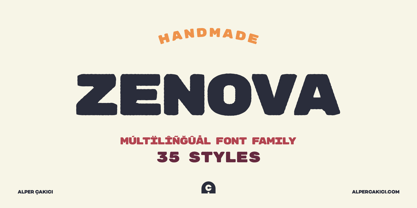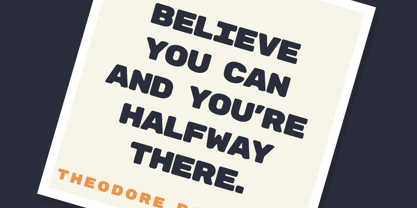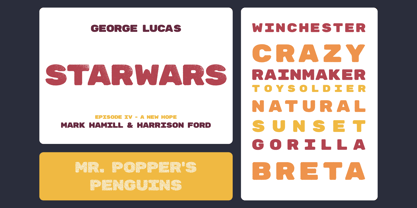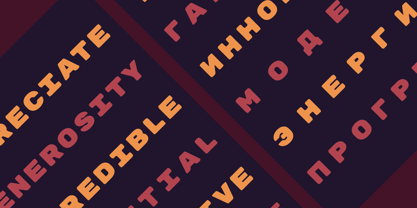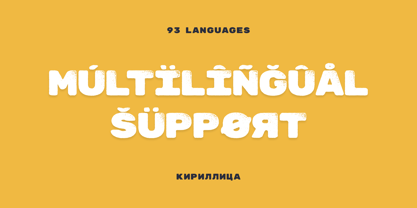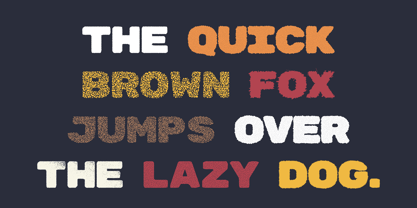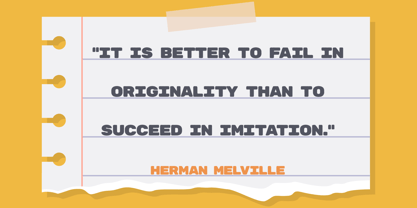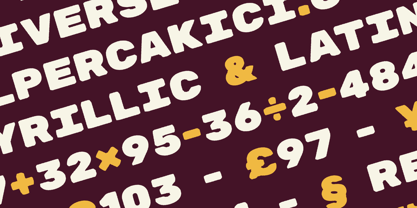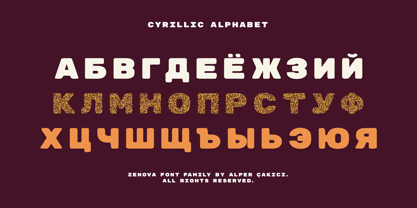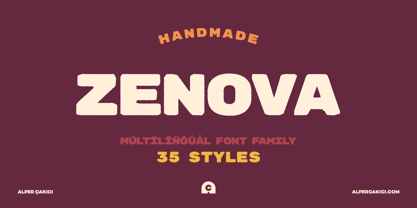
Zenova
by AlperCakici
The Zenova Font Family was designed by Alper Çakıcı and published by AlperCakici. Zenova contains 35 styles and family package options. More about this family
Zenova is a modern, versatile font with excellent kerning, making it ideal for both digital and print use. It features full support for the Cyrillic language, allowing for seamless multilingual communication. Zenova's unique design combines classic proportions with a contemporary feel, making it stand out from other same categories fonts.